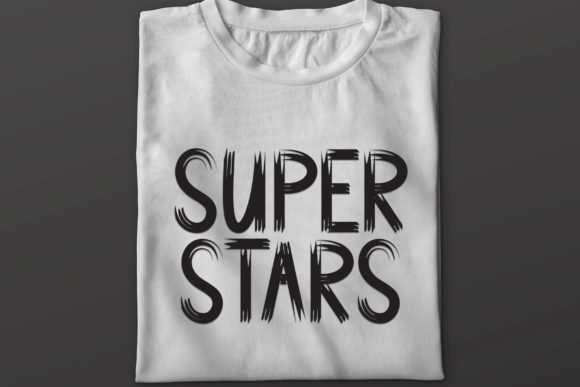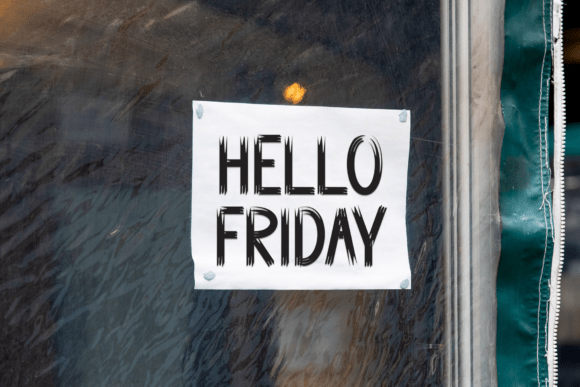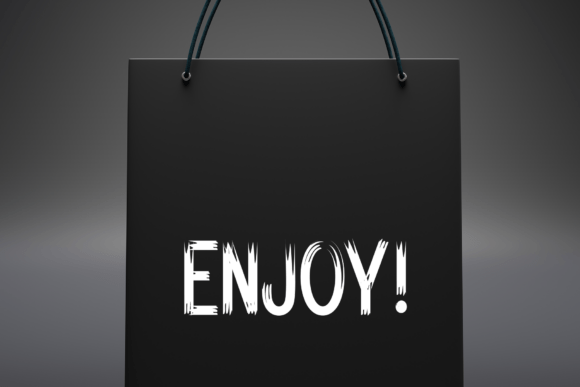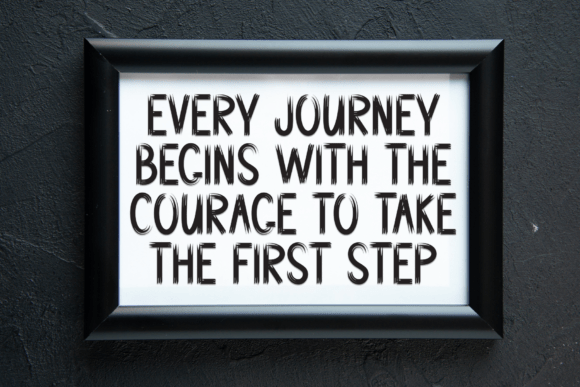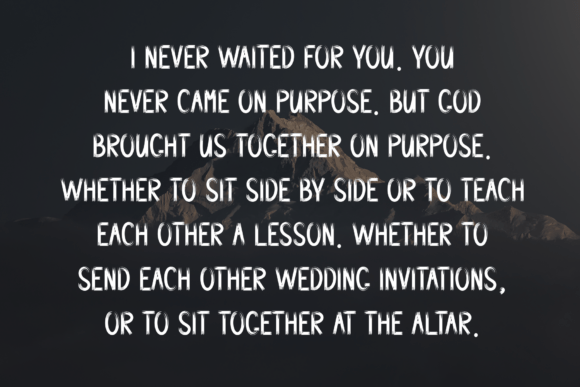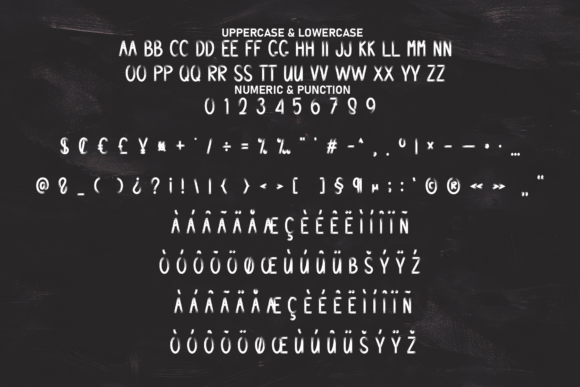
Introducing Brush Valentine Font: The Perfect Choice for Designers and Crafters
Are you looking for a font that can add a touch of warmth and personality to your creative projects? Look no further than Brush Valentine Font, a meticulously handcrafted display font that is sure to captivate your audience. With its unique and exclusive design, this font is ideal for designers and crafters who want to create mesmerizing wedding invitations, touching greeting cards, and other design elements that exude energy and flair.
The Charm of Brush Valentine Font
Brush Valentine Font is more than just a font – it’s an experience. Its warm and inviting aura is expertly designed to make your creative projects stand out from the crowd. With its gently playful spirit, this font metamorphoses every design into a riveting visual exploration that is sure to leave a lasting impression. Whether you’re a designer, crafter, or DIY enthusiast, Brush Valentine Font is the perfect choice for anyone looking to add a touch of personality to their work.
What Makes Brush Valentine Font So Special?
So, what sets Brush Valentine Font apart from other fonts on the market? Here are just a few reasons why this font is a cut above the rest:
• Handcrafted with love: Brush Valentine Font is meticulously handcrafted with attention to detail, ensuring that every letter and curve is perfect.
• Unique and exclusive design: This font has a one-of-a-kind design that is sure to make your creative projects stand out from the crowd.
• Warm and inviting aura: Brush Valentine Font emits a warm and inviting aura that is perfect for creating welcoming and engaging designs.
• Versatile and flexible: This font is perfect for a wide range of creative projects, from wedding invitations and greeting cards to posters and social media graphics.
Brush Valentine Font is especially well-suited for wedding invitations and greeting cards. Its romantic and whimsical design makes it perfect for creating beautiful and memorable stationery that will leave a lasting impression on your loved ones. Whether you’re a wedding planner, designer, or DIY enthusiast, this font is sure to make your wedding invitations and greeting cards truly special.
Tips for Using Brush Valentine Font
Here are a few tips for using Brush Valentine Font in your creative projects:
• Use it sparingly: Brush Valentine Font is a display font, so it’s best to use it sparingly to add emphasis and personality to your designs.
• Pair it with complementary fonts: Pair Brush Valentine Font with complementary fonts to create a unique and visually appealing design.
• Experiment with colors and textures: Don’t be afraid to experiment with different colors and textures to add depth and interest to your designs.
In conclusion, Brush Valentine Font is a unique and captivating display font that is perfect for designers and crafters who want to add a touch of personality to their creative projects. With its warm and inviting aura, gently playful spirit, and expertly crafted design, this font is sure to make your designs stand out from the crowd. Whether you’re creating wedding invitations, greeting cards, or other design elements, Brush Valentine Font is the perfect choice for anyone looking to add a touch of magic to their work.